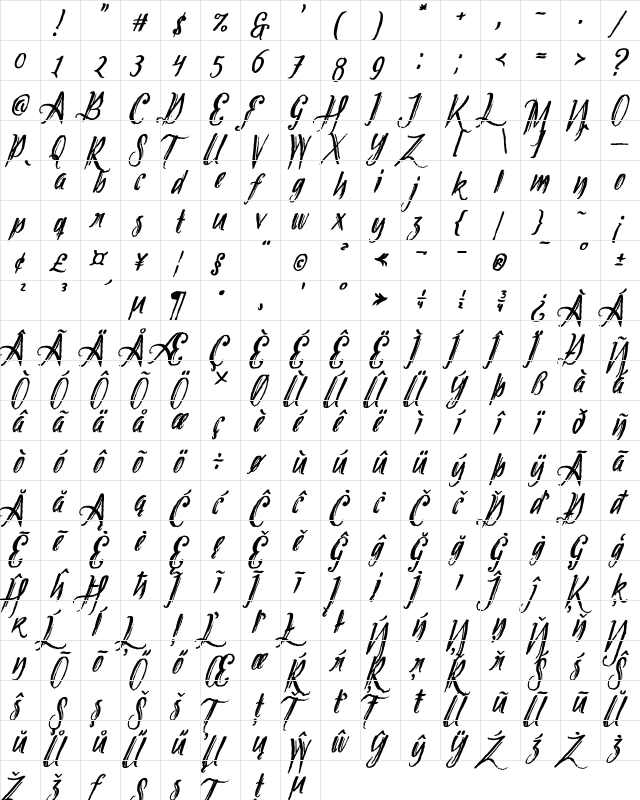
Complete Tipbrush Script 2 Slanted Italic glyph index. Displaying only characters natively supported by Tipbrush Script 2 Slanted Italic font.
Tipbrush Script 2 Slanted flows with the natural rhythm of handwritten lettering, making it ideal for designs that call for warmth and personal expression.
Font Pairing: Combine Tipbrush Script 2 Slanted with a simple geometric sans for maximum contrast - the tension between flowing curves and clean structure is a classic typographic pairing.
Pro Tip: Use Tipbrush Script 2 Slanted for short runs of text - names, titles, or taglines. Extended body copy in script faces tires the eye quickly.